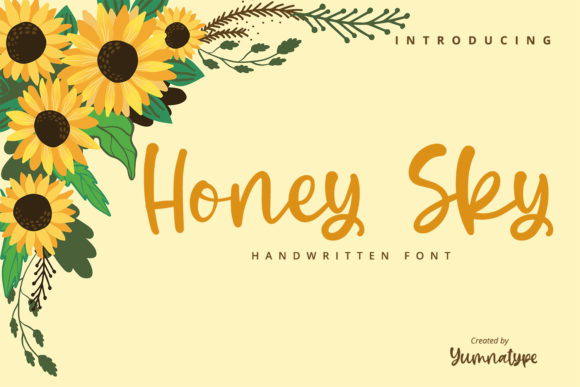
Step into a world of enchanting scripts, where every letter dances with a playful charm. Honey Sky Font, a whimsical and inviting creation from the skilled hands of Yumna_Type, captures the essence of handwritten artistry with its friendly and alluring curves. This script font is not just a collection of characters; it's an invitation to let your creativity soar, to craft designs that resonate with warmth and personality.
Picture a branding project where Honey Sky's graceful lines weave a tale of elegance and approachability. Its gentle curves and airy loops evoke a sense of ease and connection, making it ideal for capturing the attention of your audience. Or envision a product packaging design where Honey Sky's playful strokes evoke a sense of delight and anticipation, inviting customers to explore your offerings with an eager heart.
With Honey Sky Font, handwritten notes and invitations transcend ordinary communication. Each letter becomes a brushstroke of emotion, conveying your heartfelt messages with a touch of whimsy and sincerity. Whether you're creating a wedding invitation that exudes romance and elegance or a birthday card that sparks joy and laughter, Honey Sky empowers you to craft unforgettable keepsakes that will be cherished for years to come.
But Honey Sky's versatility extends far beyond the printed page. Picture a captivating t-shirt design where its playful characters dance across the fabric, inviting smiles and sparking conversations. Or envision a poster that makes a bold statement with Honey Sky's eye-catching lines, drawing attention and leaving a lasting impression.
In a world where digital communication often takes precedence, Honey Sky Font offers a refreshing reminder of the beauty and power of handwritten expression. It's a font that brings a human touch to your designs, creating a connection that transcends screens and resonates with the hearts of your audience.
So, let Honey Sky Font ignite your creativity, guide your designs, and weave a tapestry of warmth, personality, and unforgettable moments in your projects. Download it today and experience the magic of handwritten fonts like never before.